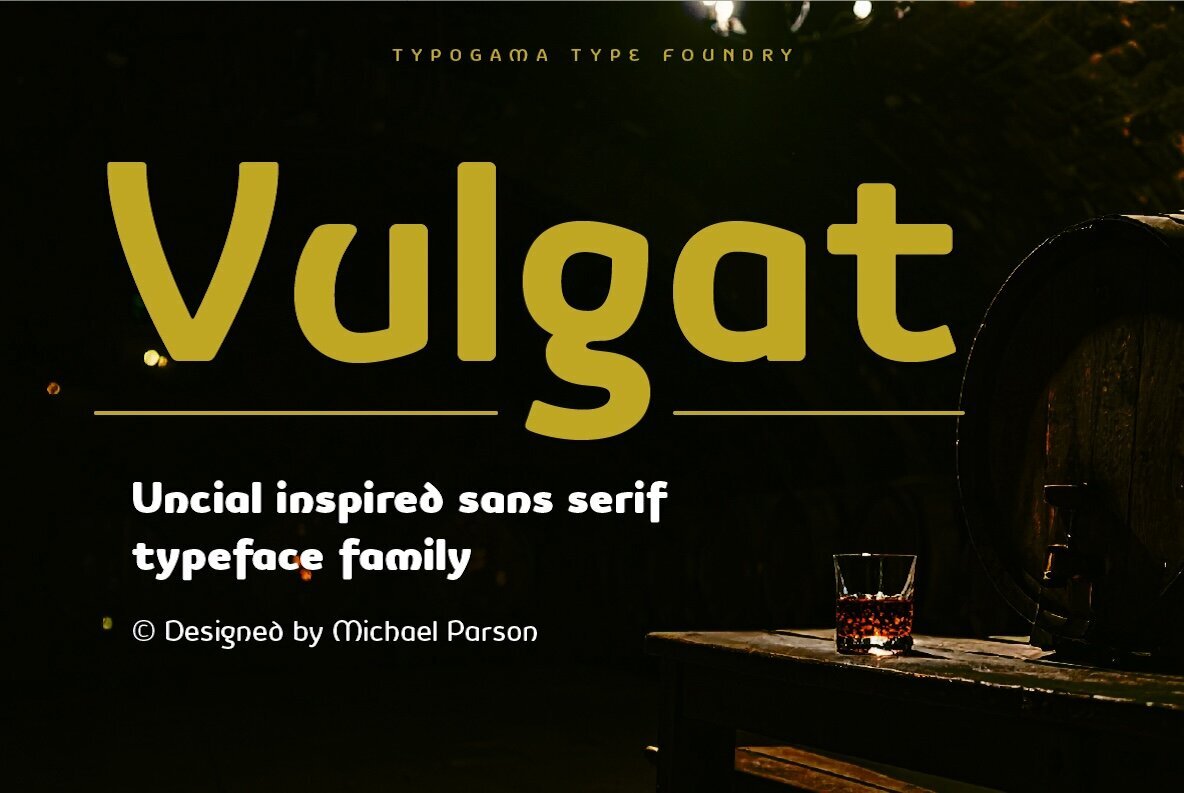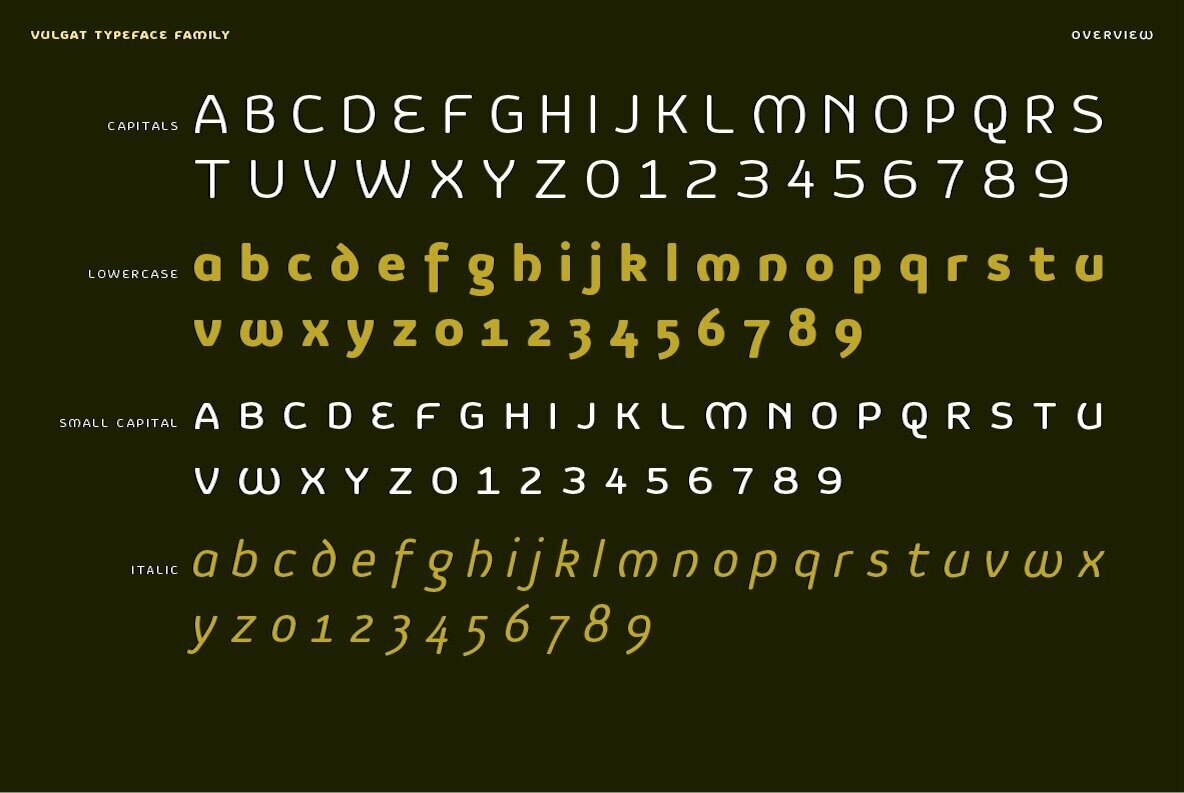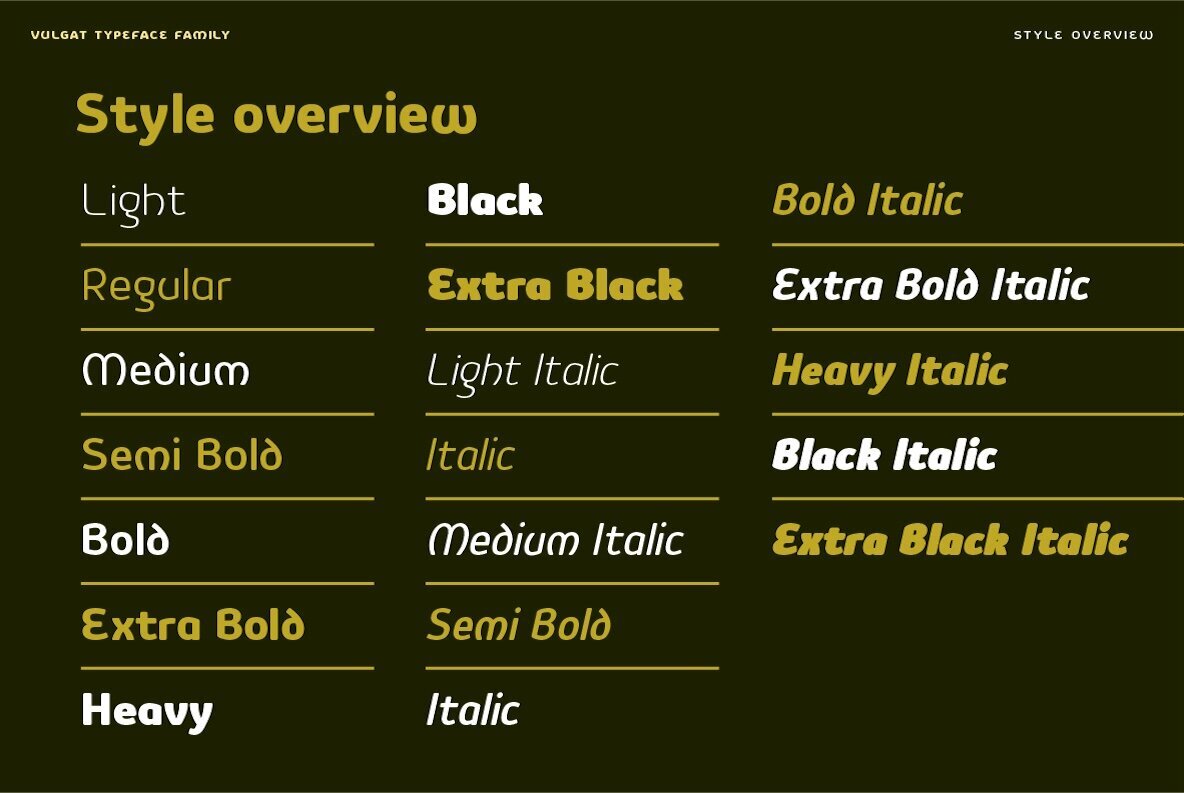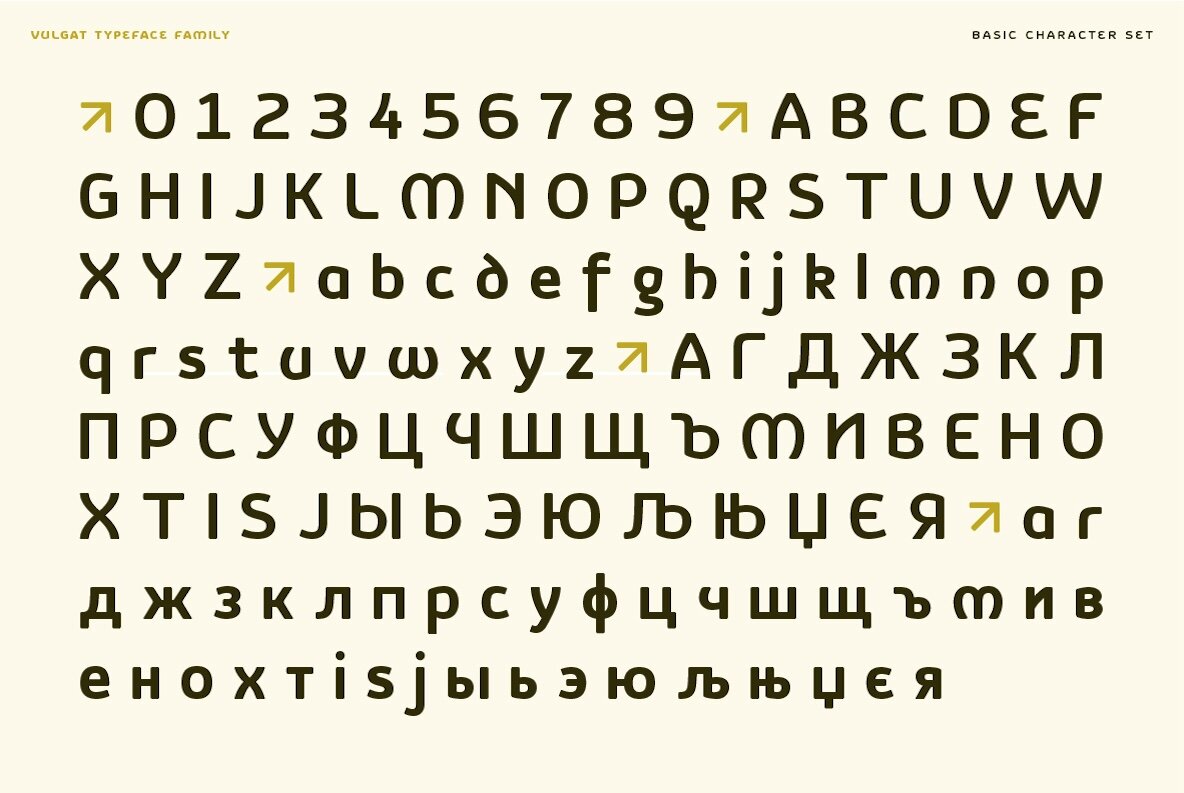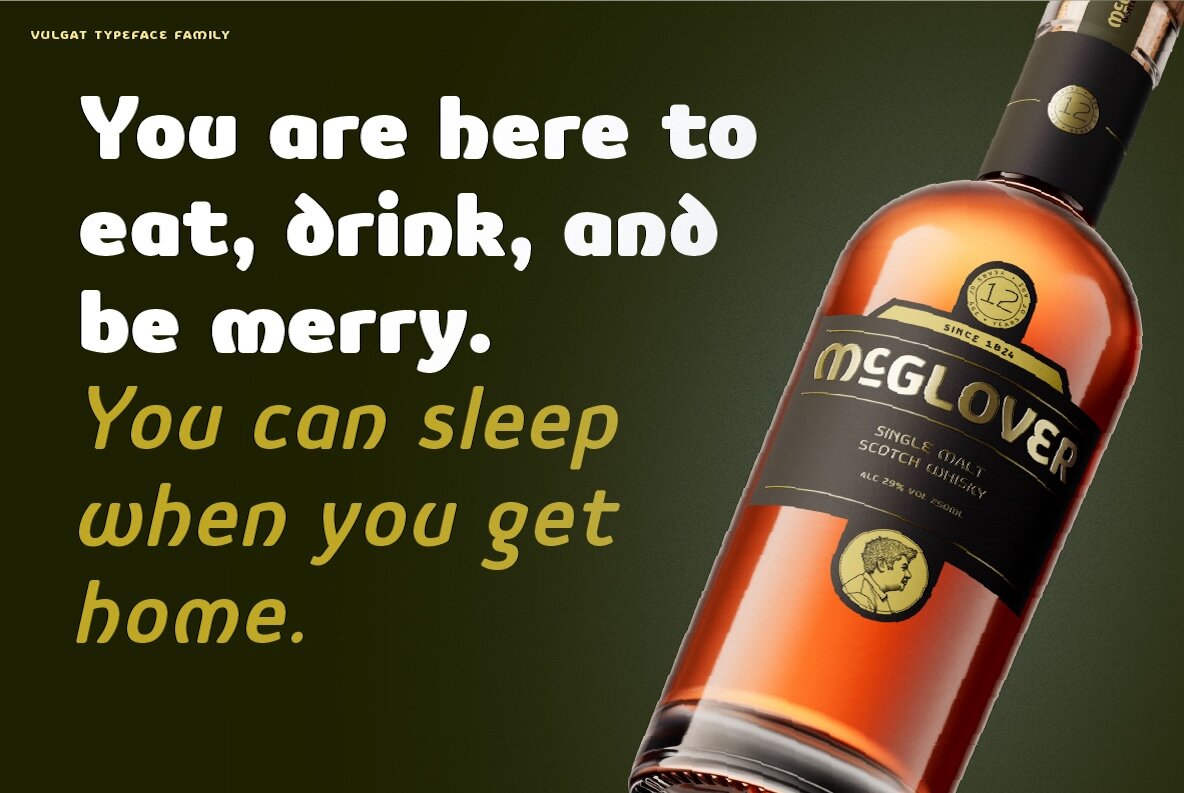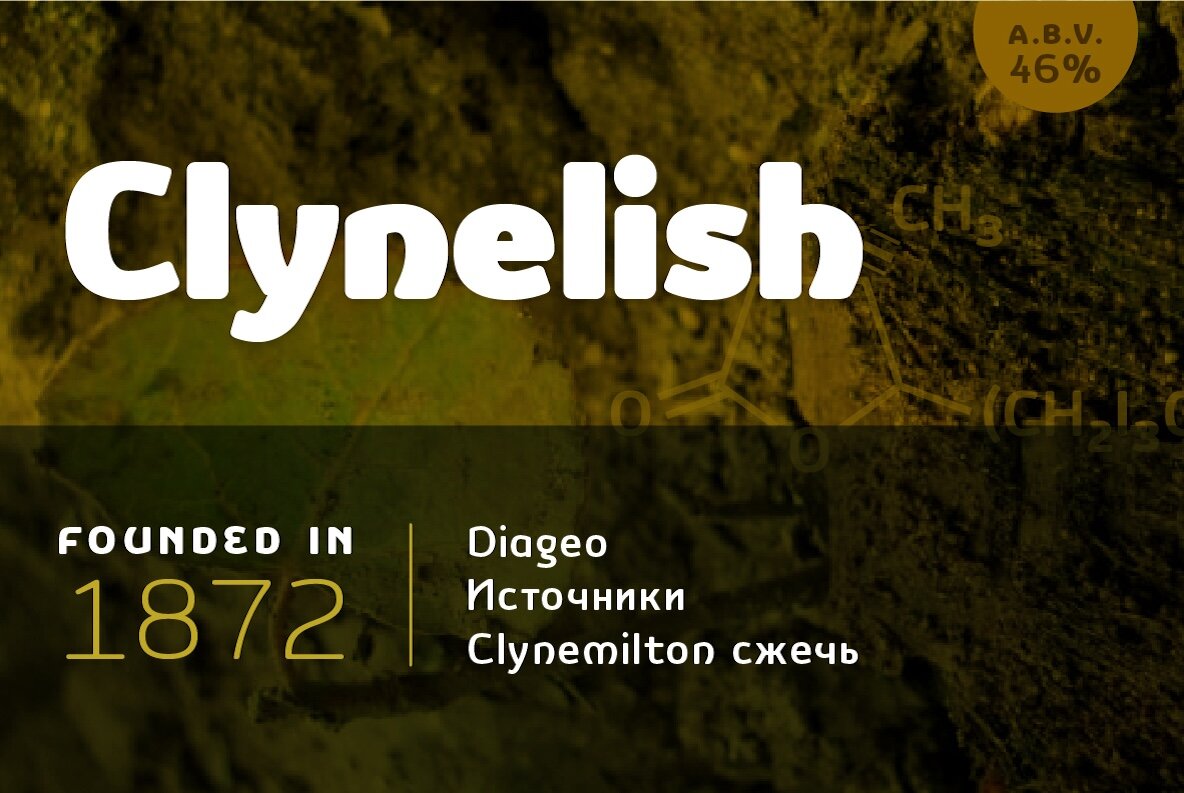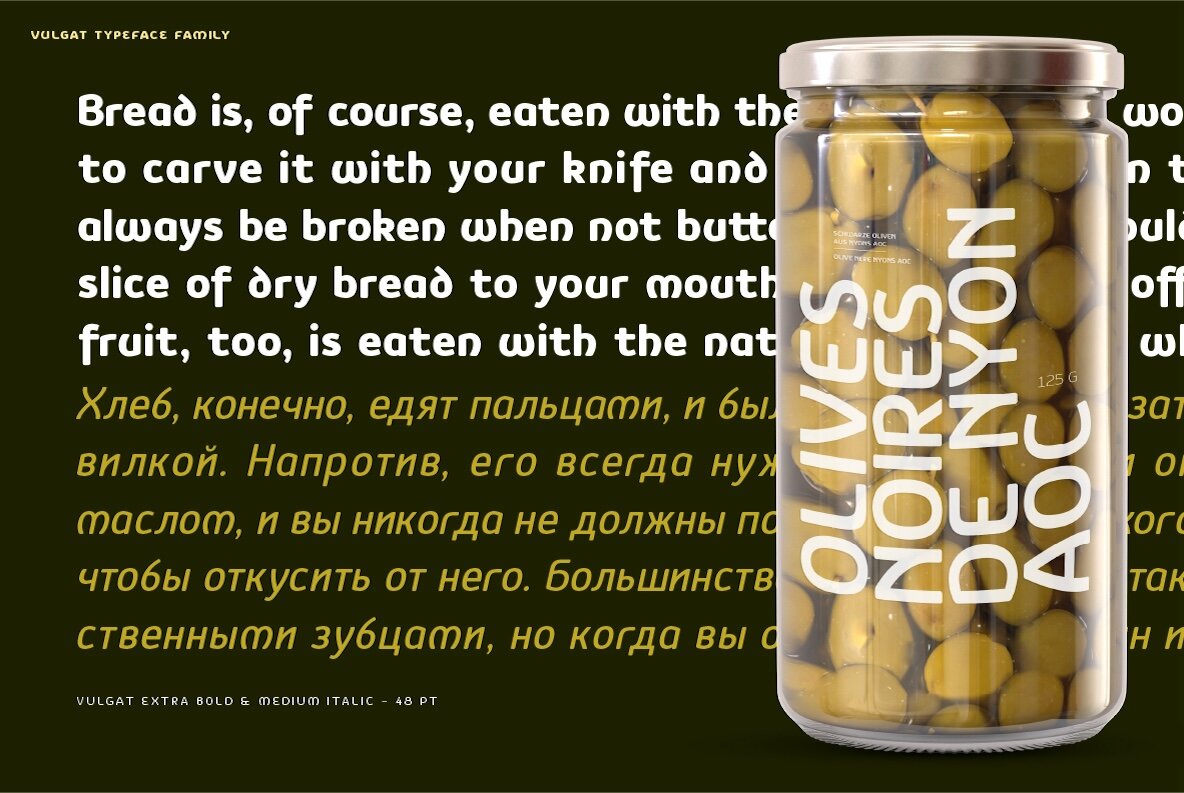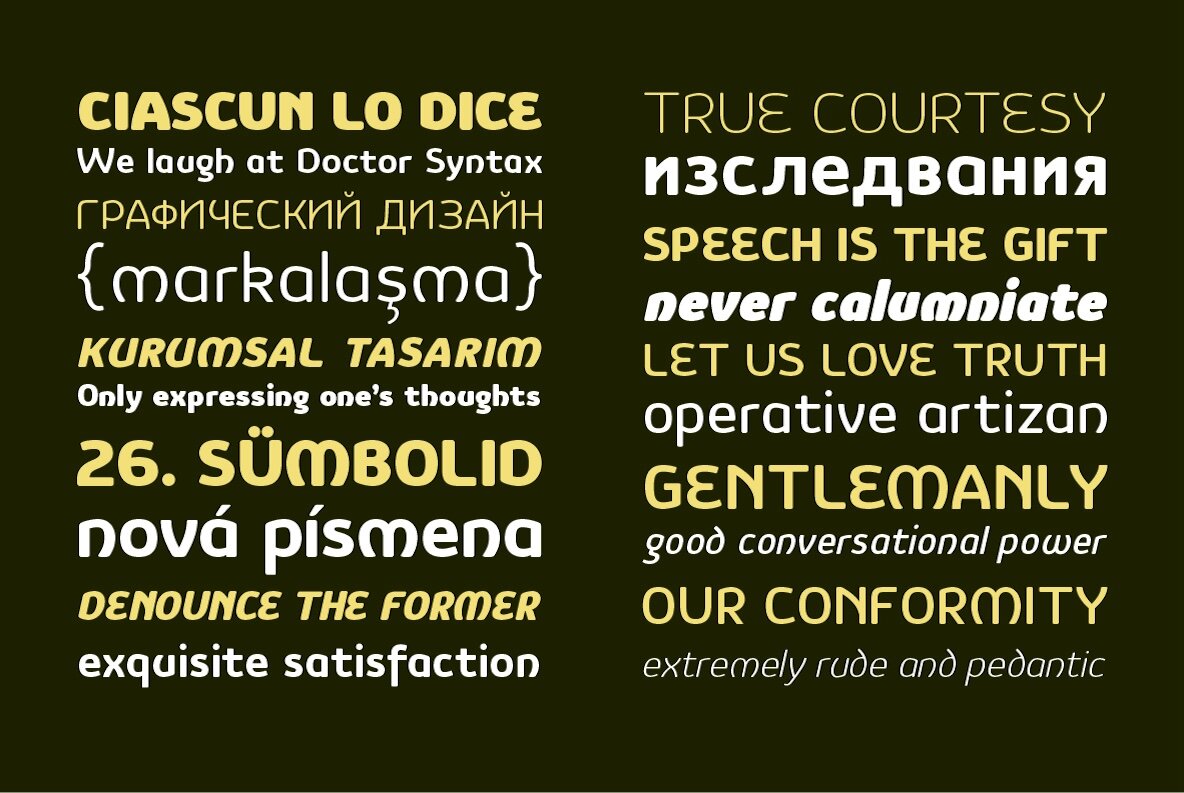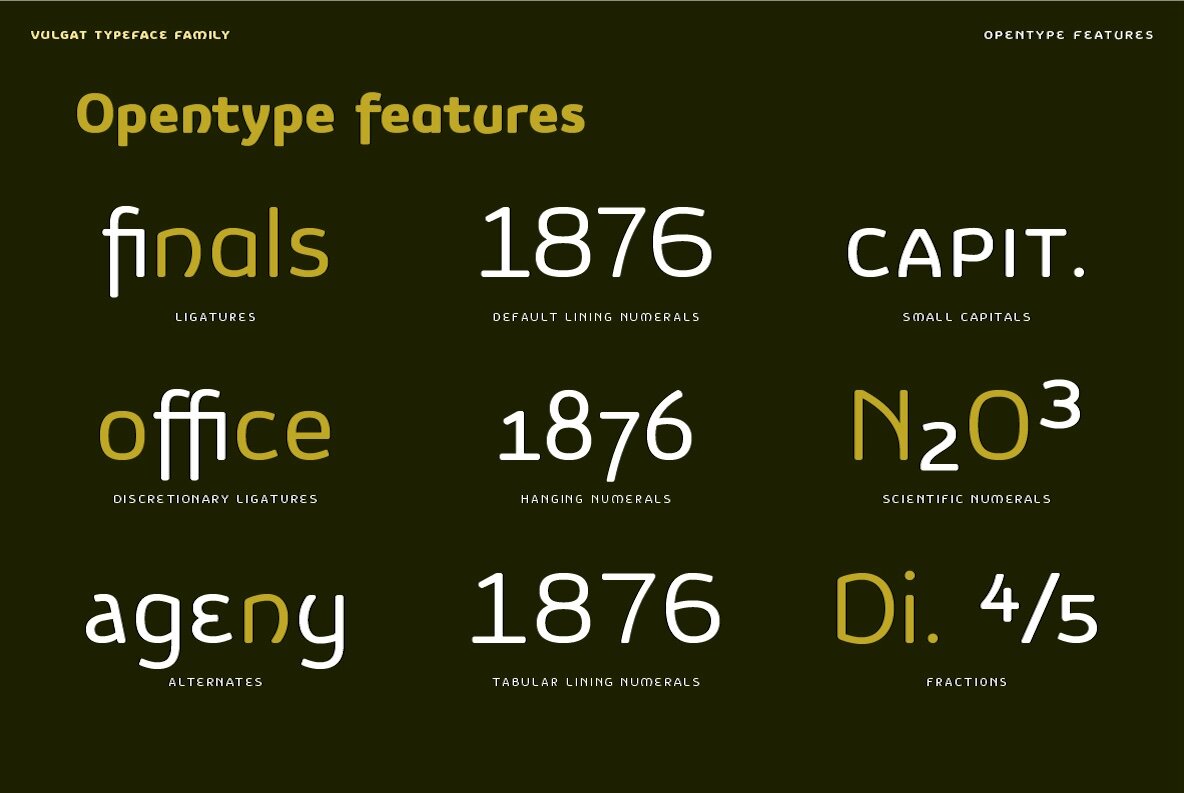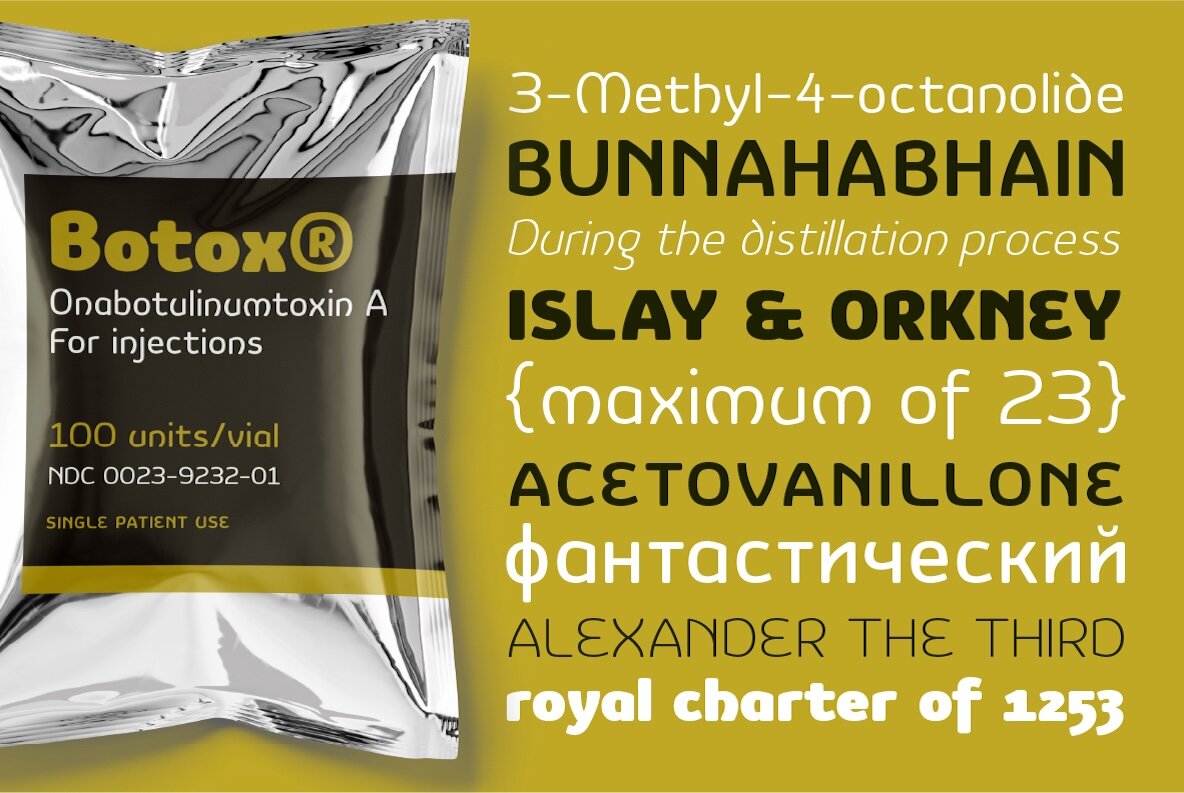
Vulgat Font
Vulgat is an uncial-inspired typeface that aims to blend the historical shapes of the past with a contemporary approach. With a soft, rounded stroke that conveys a warm and friendly tone, an open and clear form, it remains legible in smaller sizes while conveying a unique and distinctive style. Thanks to a large weight range of eighteen styles and an extended character set that covers most Latin and Cyrillic-based languages, it can adapt to any context and setting, whether in traditional print or digital. Vulgat is available as standalone OpenType (OTF) weights or as a single Variable font (TTF VAR). Language Support: ISO 1, ISO 2, ISO 3, ISO 4, ISO 5